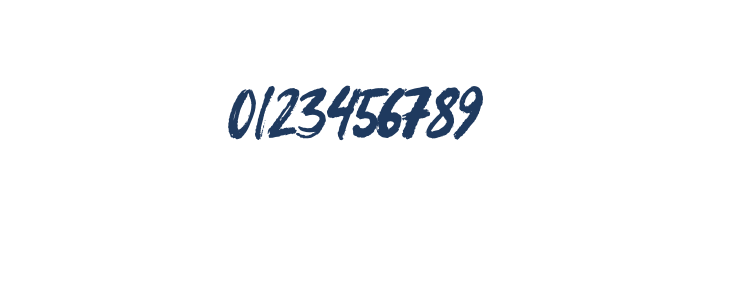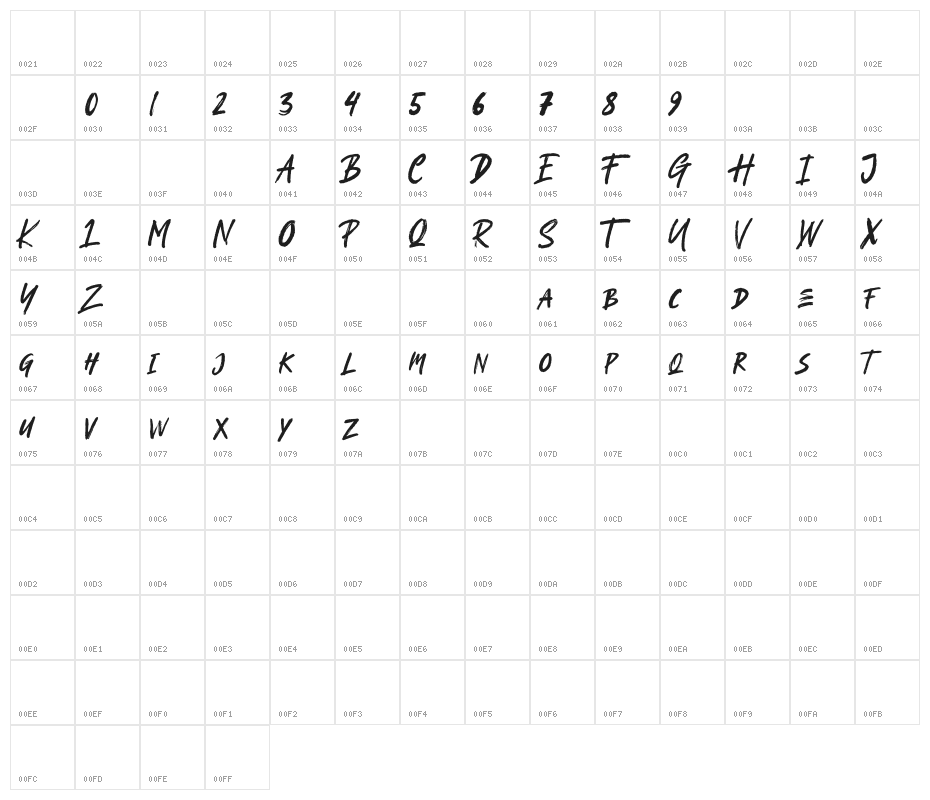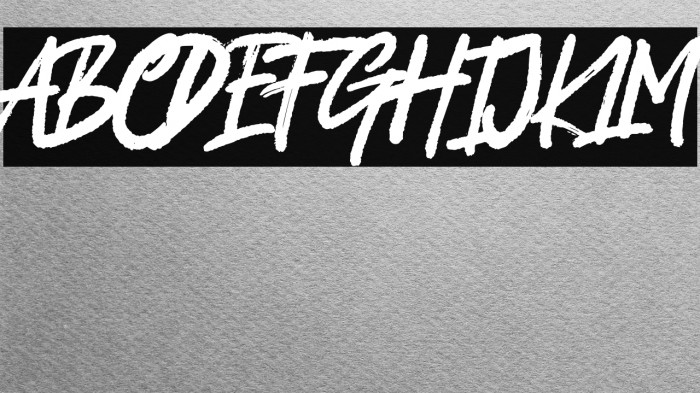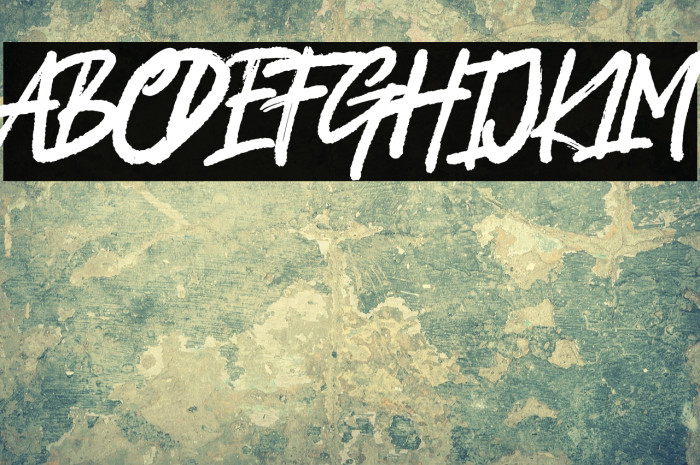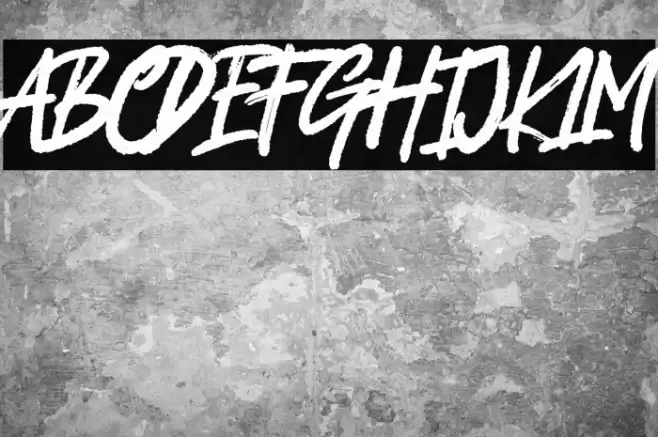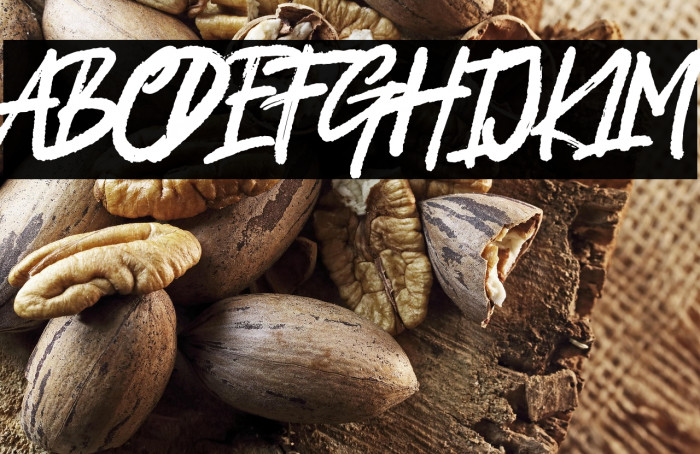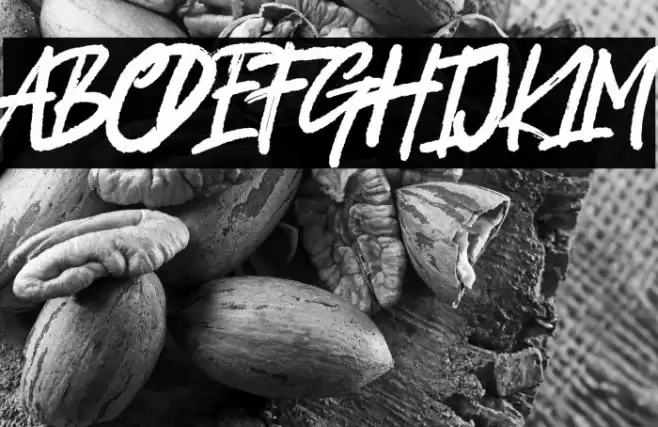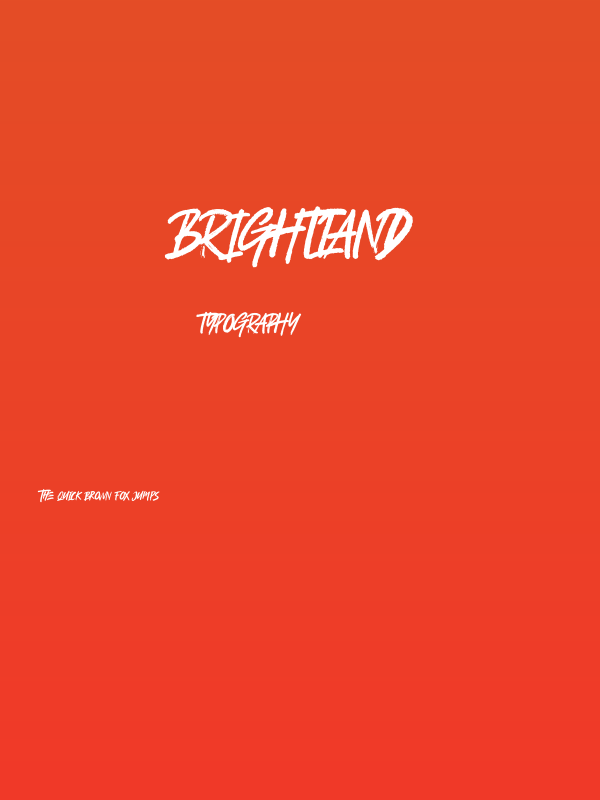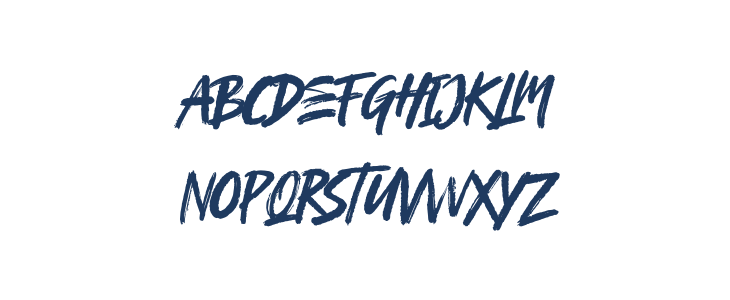
Brightland Font
Brightland Description
This font exudes a bold and dynamic energy, characterized by its brush-like strokes and expressive style. The uppercase letters are prominent and commanding, while the lowercase letters maintain a consistent flow, enhancing the font's overall fluidity. The numbers are equally bold, ensuring they stand out in any design. The special characters are crafted with the same attention to detail, making them seamlessly integrate with the rest of the font. This font's hand-drawn appearance adds a personal touch, making it perfect for projects that require a human element. Its rough edges and varying stroke thickness give it a raw, artistic feel, ideal for creative and unconventional designs.
| Proposed Projects | Ideal for posters, album covers, branding, and any project needing a bold, artistic touch. |